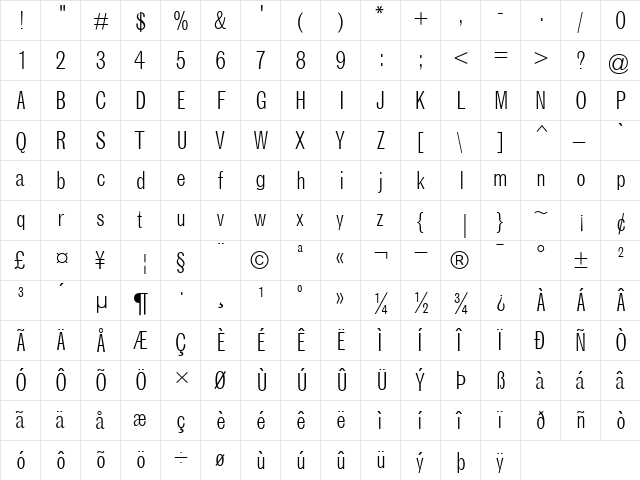
Design Context for GrotesqueMT-CondensedLight Typeface
GrotesqueMT-CondensedLight offers clean, dependable letterforms without strong stylistic allegiance, making it a practical choice for designers who need flexibility. The delicate stroke weight brings airiness and refinement to layouts. The condensed width makes it efficient for tight spaces without sacrificing legibility.
Pro Tip: Pair GrotesqueMT-CondensedLight with a font of contrasting weight or personality to build a more expressive typographic hierarchy.